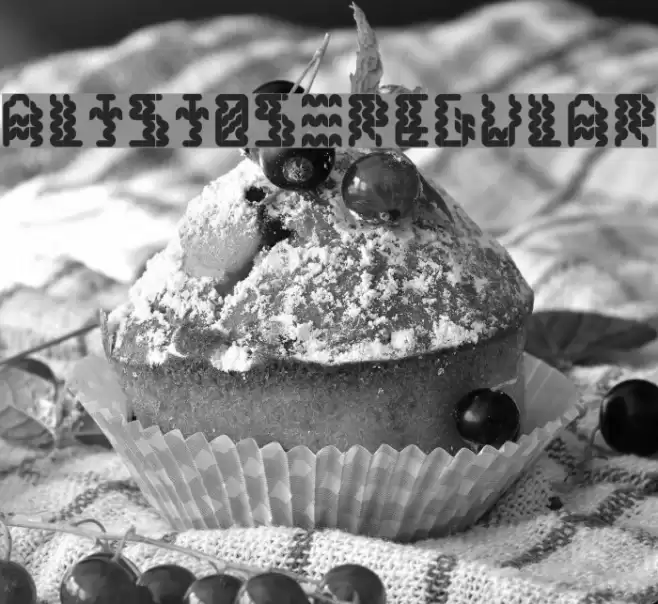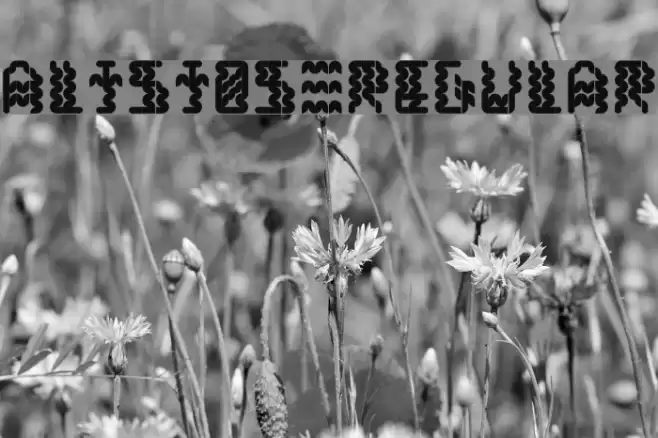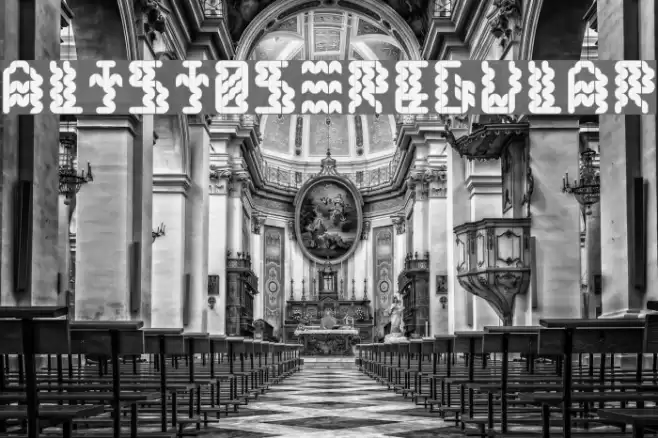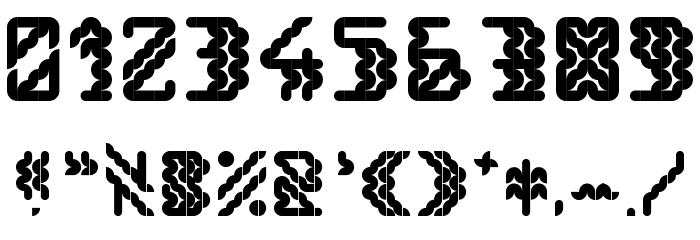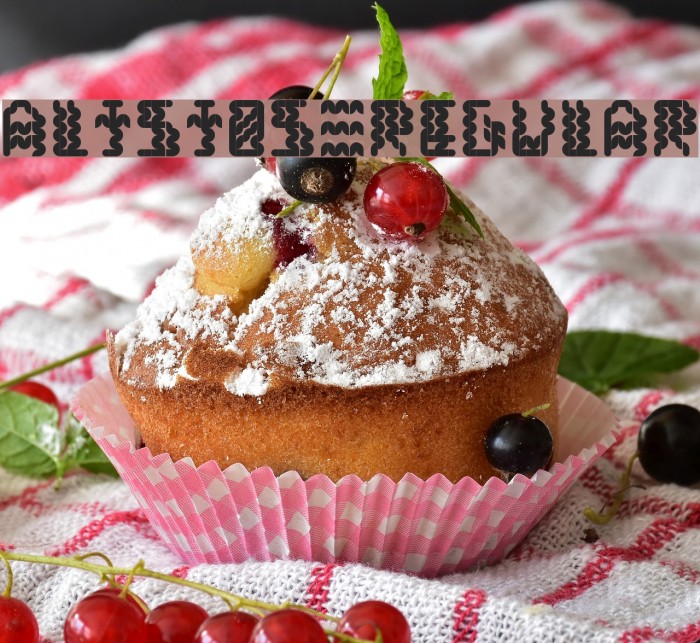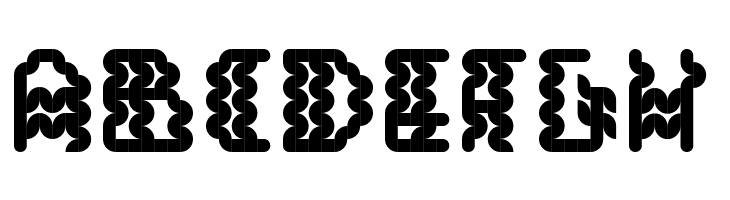
Alisios Regular Font
Alisios Regular Description
This font features a bold, decorative style with a unique pattern that resembles waves or zigzags within each character. The design is highly stylized, creating a sense of movement and energy. Each letter and number is composed of thick strokes with a consistent pattern, making it stand out as a display typeface. The characters are evenly spaced, maintaining a uniform appearance across the board. This font is ideal for projects that require a bold statement or artistic flair, such as posters, logos, or branding materials. Its distinctive style ensures that it captures attention and adds a creative touch to any design.
A bold, decorative font with a wave-like pattern, perfect for eye-catching designs from Uncategorized fonts.
- Proposed Projects: Ideal for posters, logos, branding, and any project needing a bold, artistic touch.